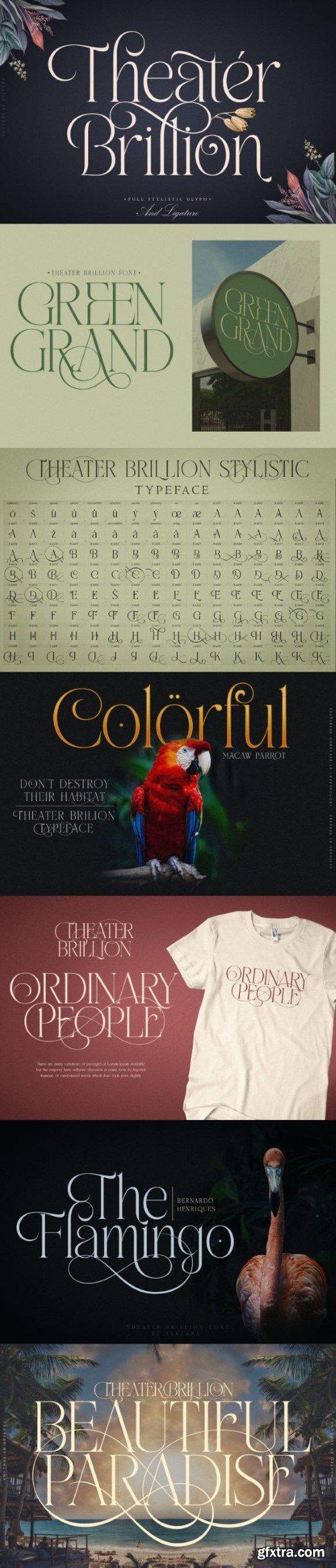
Theater Brillion Font
Theatre Brillion is a bold and assertive serif font. No matter the topic, this font will be an incredible asset to your fonts' library, as it has the potential to elevate any creation.